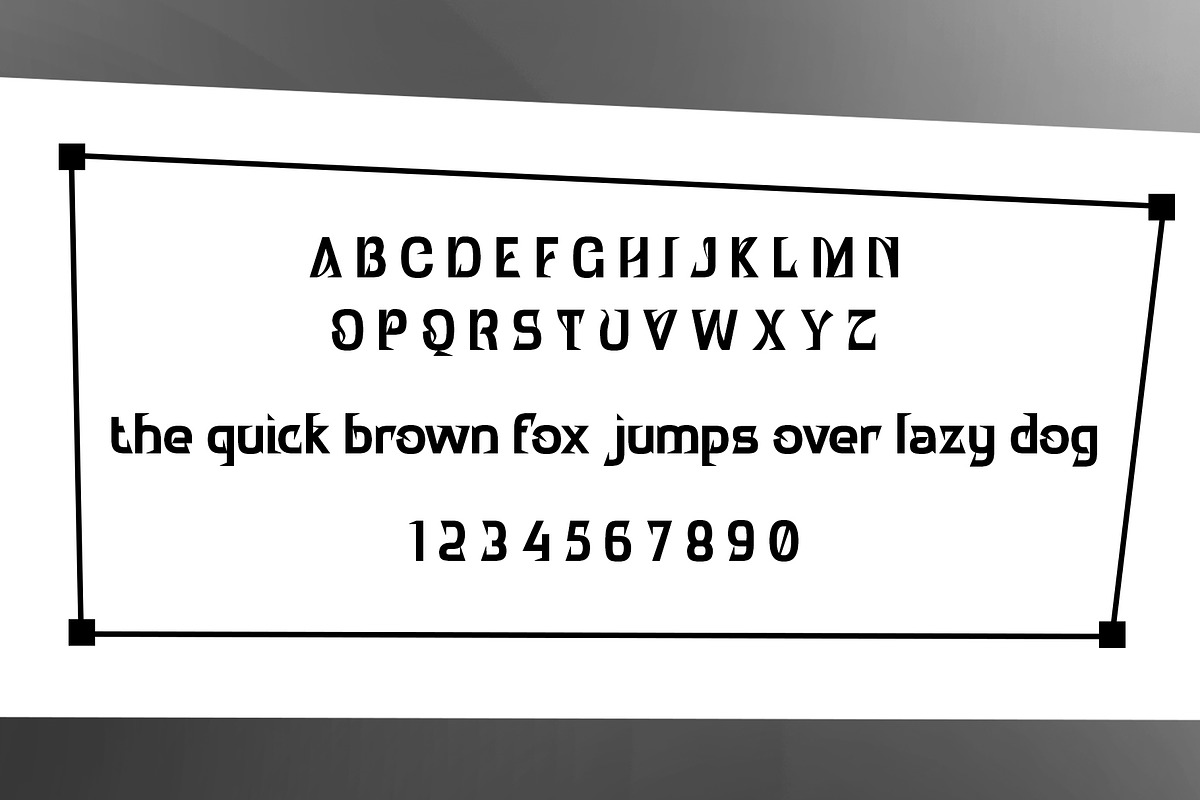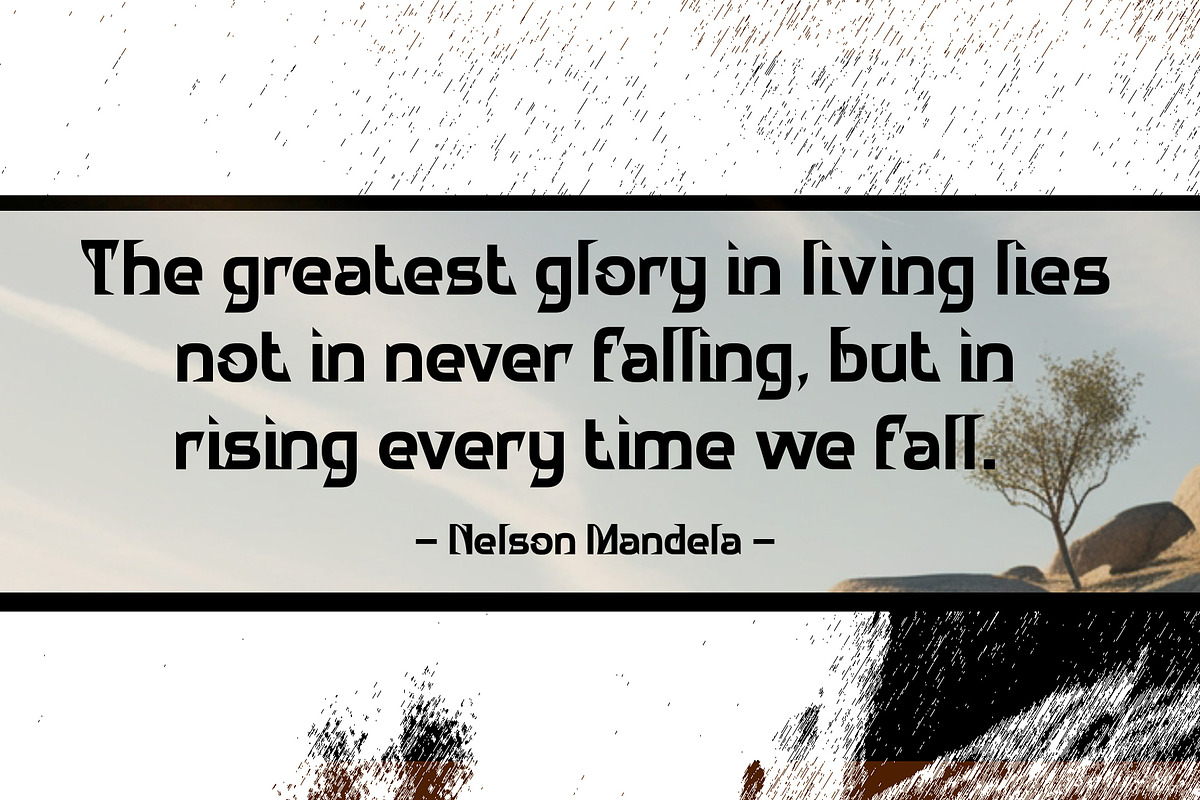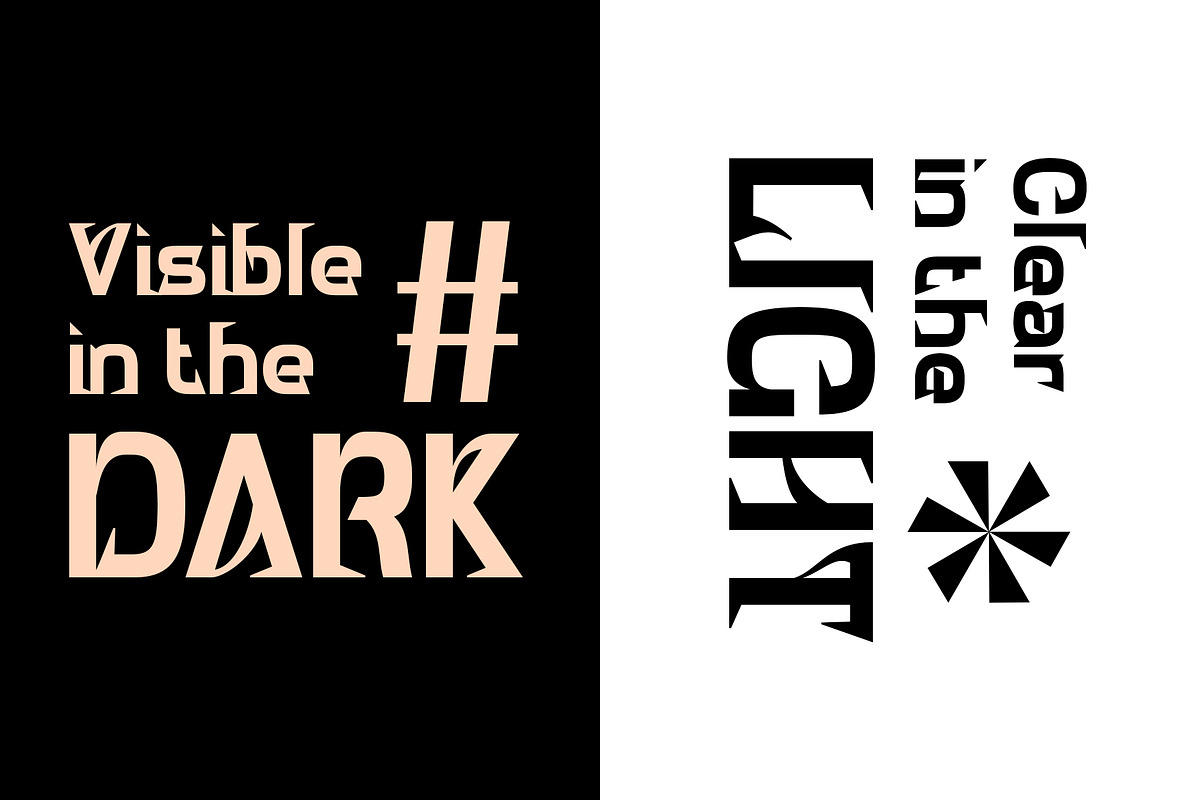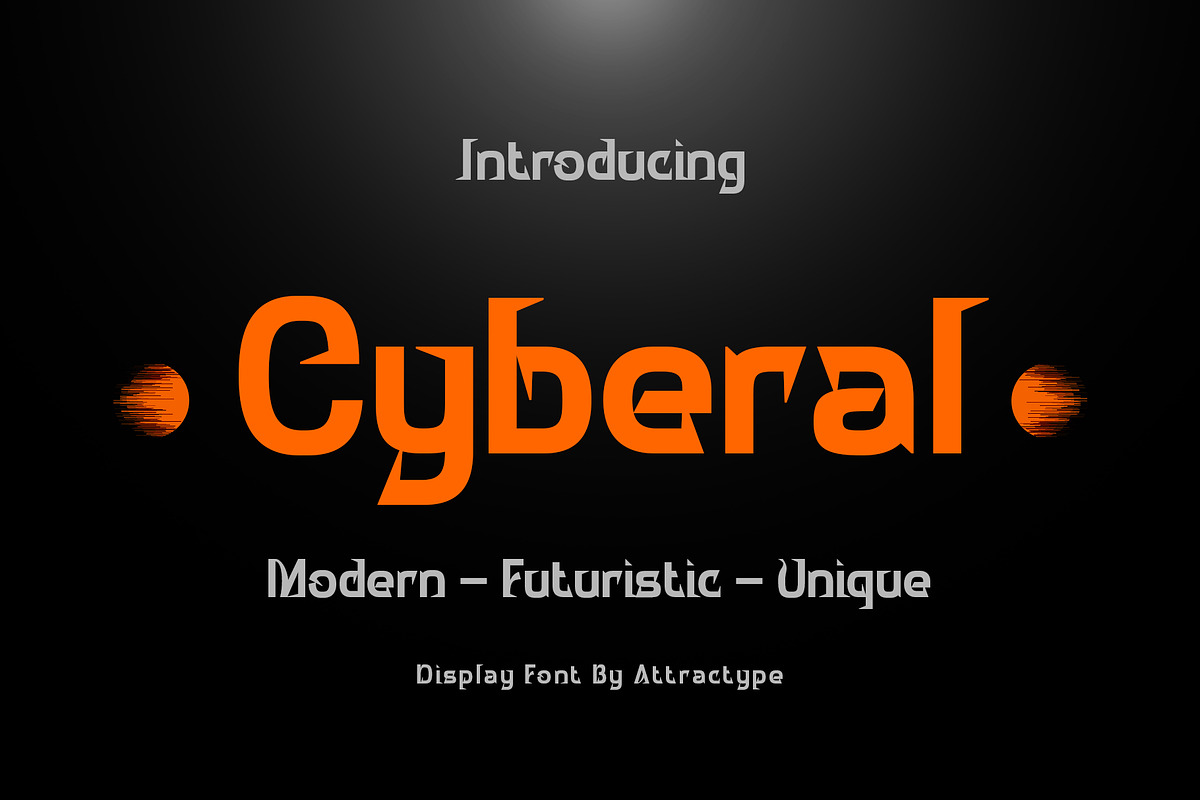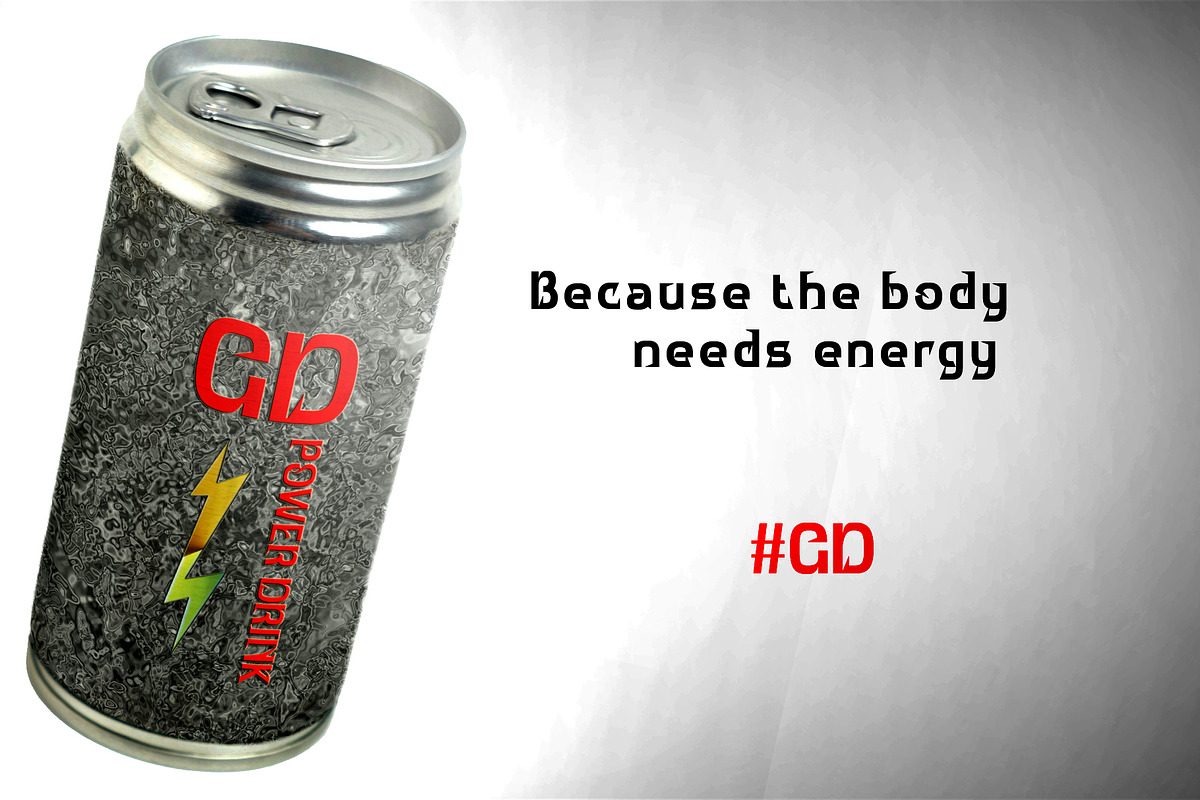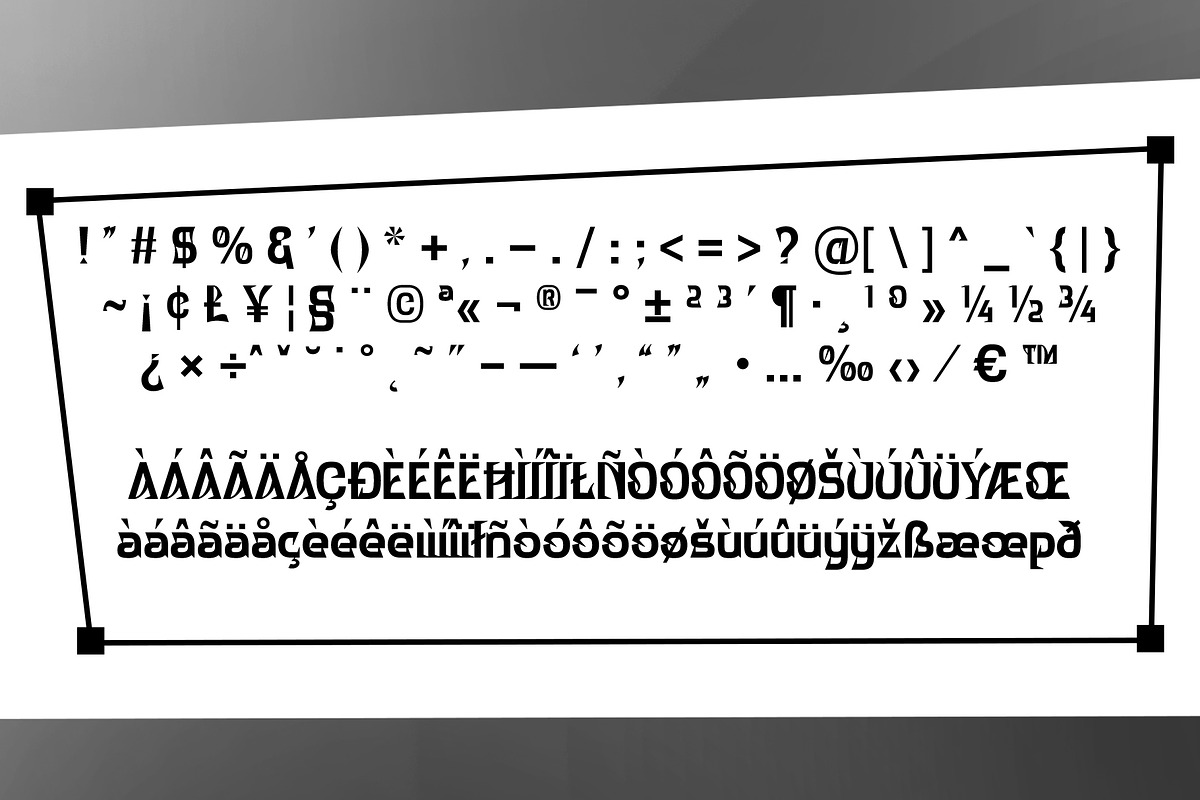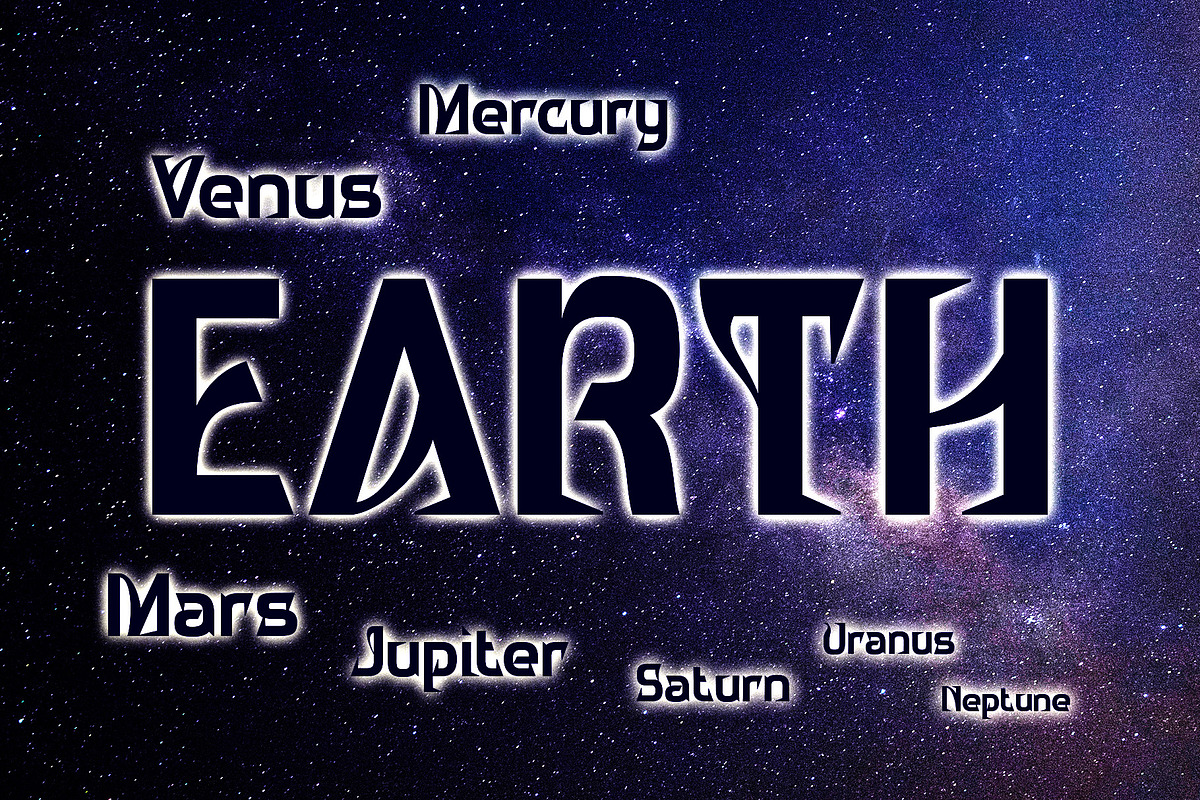
Cyberal - Modern Futuristic Unique
Cyberal is a display font for corporate branding, logos, banners, text effects, quotes, posters, t-shirts, and other design projects that require bold, modern, and futuristic fonts.
This unique font is complete with all capital letters, lowercase letters, standard punctuation, and multilingual support.